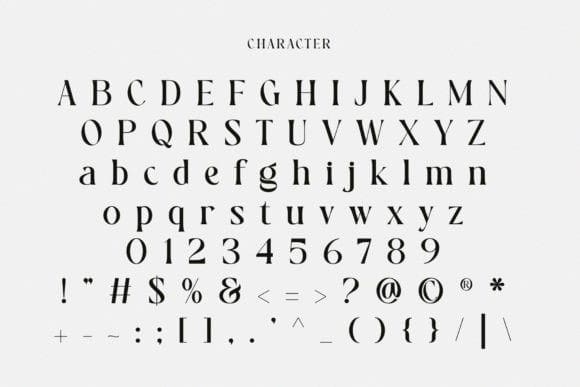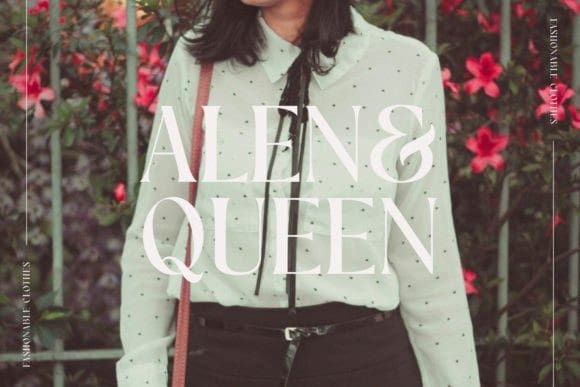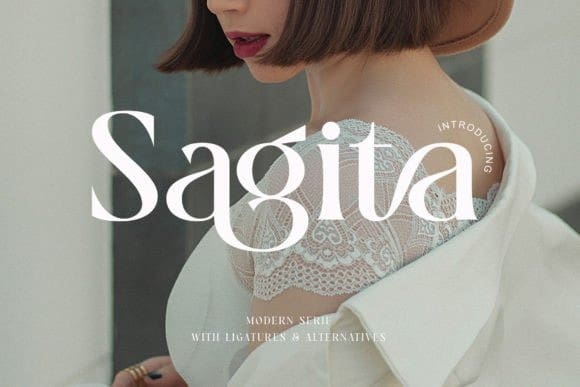
Sagita Font
Sagita Font is a luxurious serif font that captivates with its regal charm and refined aesthetics. Crafted for grandeur, its stately serifs and intricate details exude sophistication. Elevate your designs with the timeless elegance of Sagita, a font that commands attention and exudes opulent style.